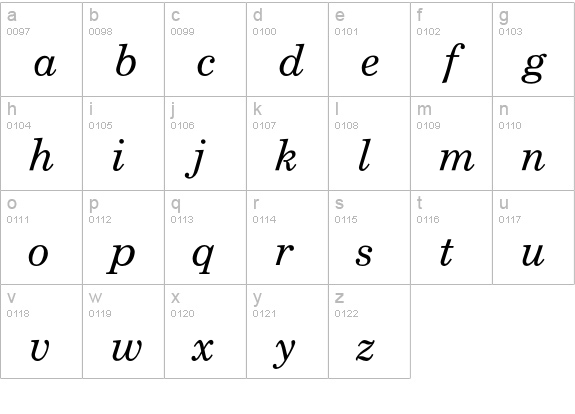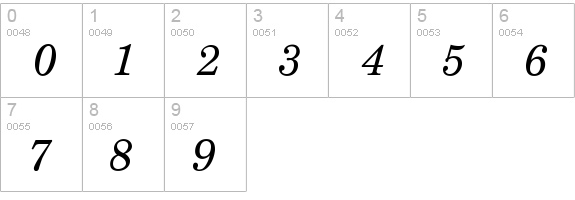
CenturySchoolItalic Font Details
CenturySchoolItalic is a classic and elegant font that exudes sophistication and professionalism. Its slanted style adds a touch of modernity while maintaining a timeless appeal. Ideal for formal documents, invitations, and branding materials, this font strikes the perfect balance between traditional and contemporary design elements. The best part? CenturySchoolItalic is available for free download at FontsMarket.com. Now you can elevate your projects with this premium font without any cost. Don't miss out on this opportunity to enhance your designs with the beauty and versatility of CenturySchoolItalic.